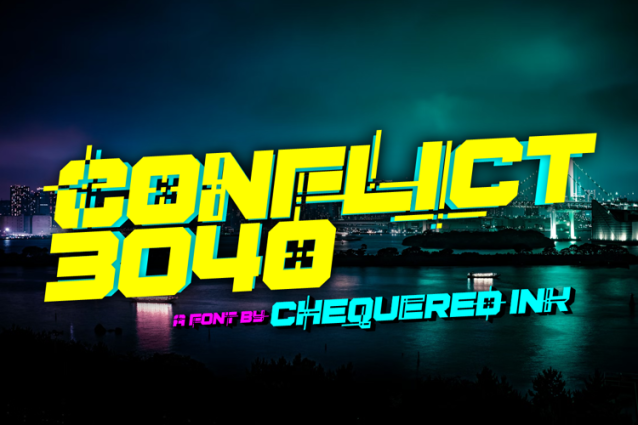
Conflict 3040 Font
Conflict 3040 Font designed by Chequered Ink, is a modern and angular typeface with a distinctive digital aesthetic. Its letterforms incorporate grid- or pixel-like details within each character, creating a futuristic and tech-inspired look. The overall design evokes a strong science fiction vibe, making it an ideal choice for projects that aim to convey innovation and a forward-thinking style.